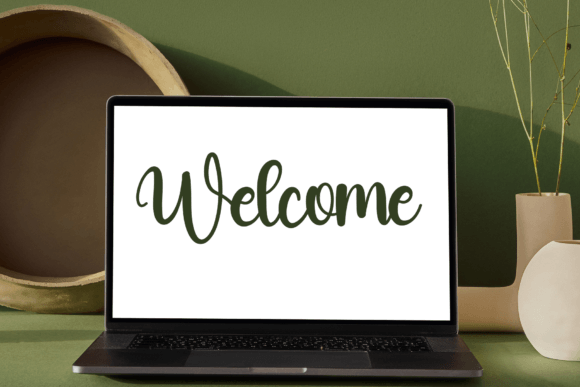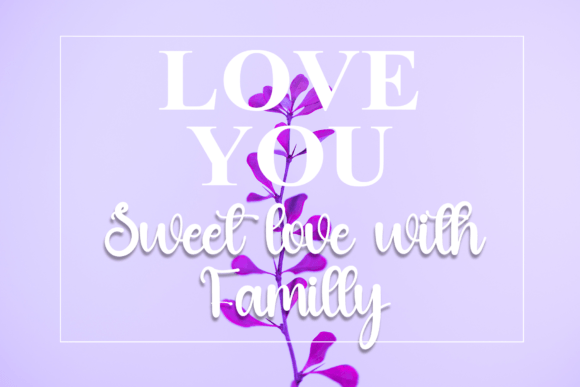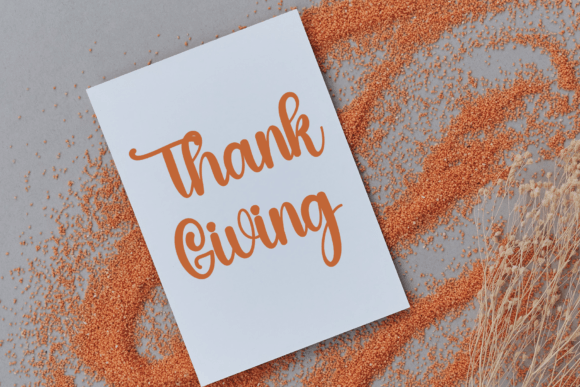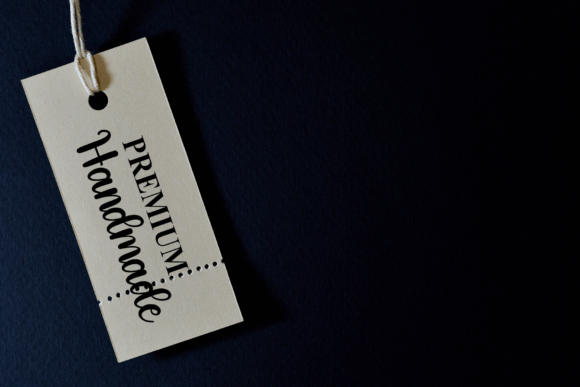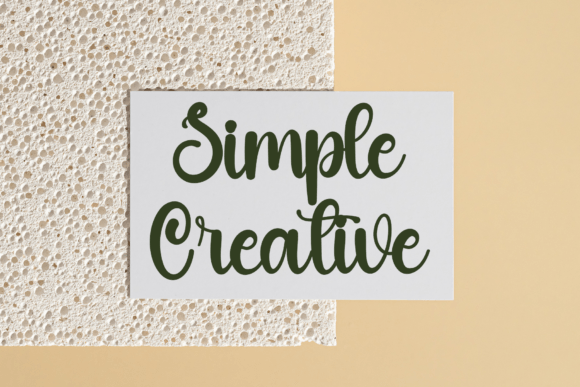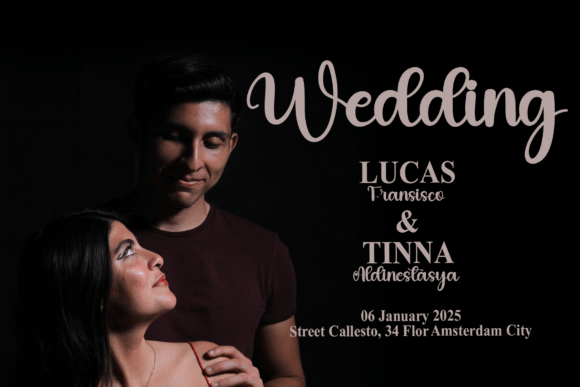
First Impressions: A Stylish Handwritten Font
Barret Font is a stylish handwritten font with a contemporary atmosphere and impeccable form, inspired by timeless classic calligraphy. It’s balanced, varied, and designed to enhance the beauty of your projects. What caught my attention was its PUA encoding, which means you can access all the amazing glyphs and ligatures with ease! 💻
- ✨ Unique and stylish handwritten aesthetic
- ✅ Impeccable form and balanced design
- 💻 PUA encoded for easy access to glyphs and ligatures
- 🌈 Versatile and suitable for various design projects
While Barret Font is an excellent choice, there are a few things to keep in mind: ⚠️
- 🤔 Some users may find the font a bit too ornate for certain projects
- ⚠️ Limited availability of language support (but it’s still a great option for English-based designs)
The Story Behind Barret Font
Barret Font was designed with the intention of creating a timeless, classic calligraphy-inspired font with a modern twist. The designer aimed to craft a font that would be both elegant and versatile, suitable for a wide range of design projects. While I couldn’t find any information on the designer’s personal story, it’s clear that their passion and dedication to typography resulted in a truly exceptional font.
Q: What is PUA encoding, and how does it benefit font users?
A: PUA (Private Use Area) encoding allows font users to access a wide range of glyphs and ligatures, making it easier to create unique and creative designs.
Q: Is Barret Font suitable for body text or long-form content?
A: While Barret Font is beautiful, it’s best suited for headlines, titles, or short-form content. For body text, a more traditional font might be more readable.